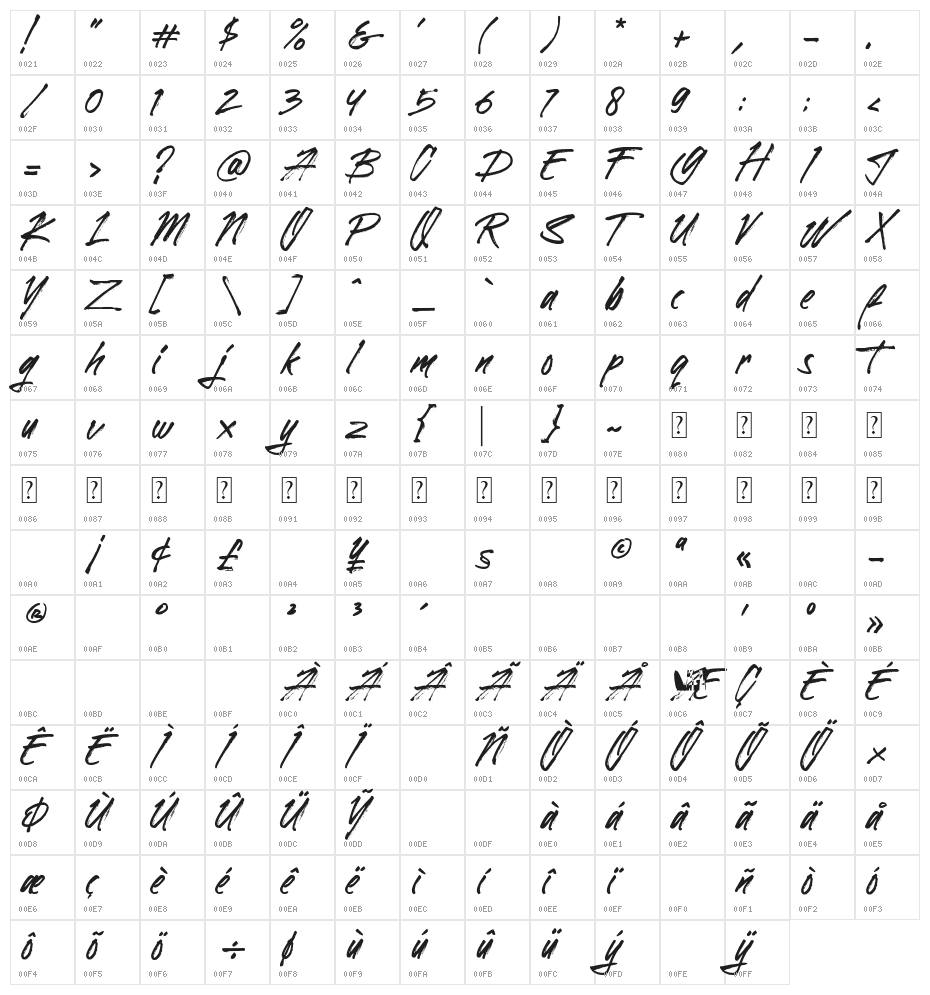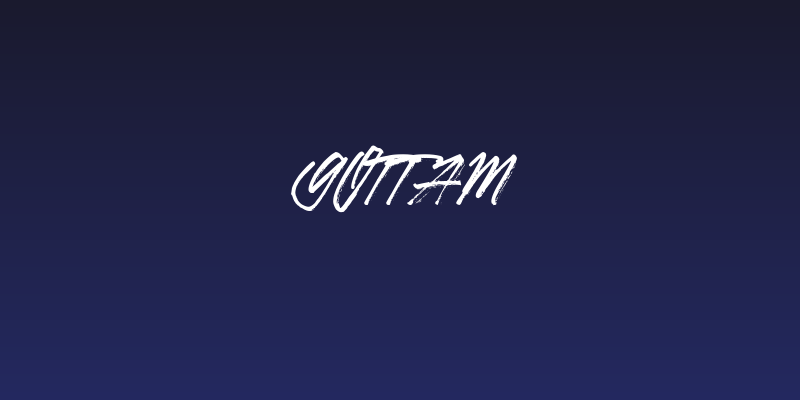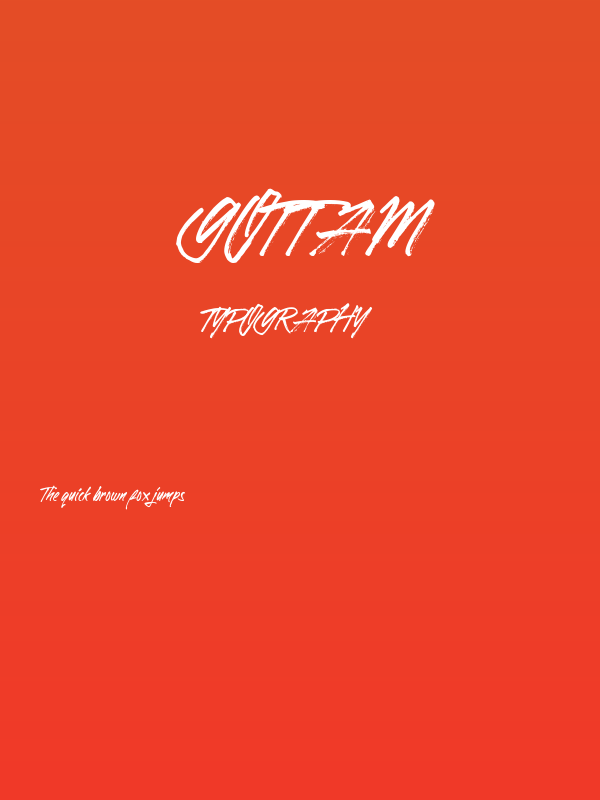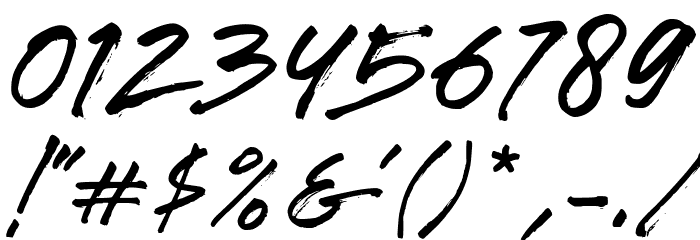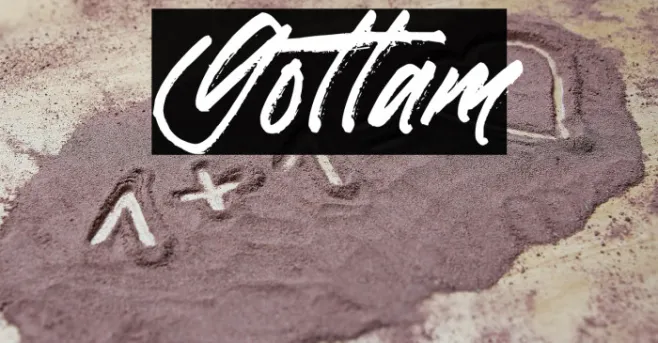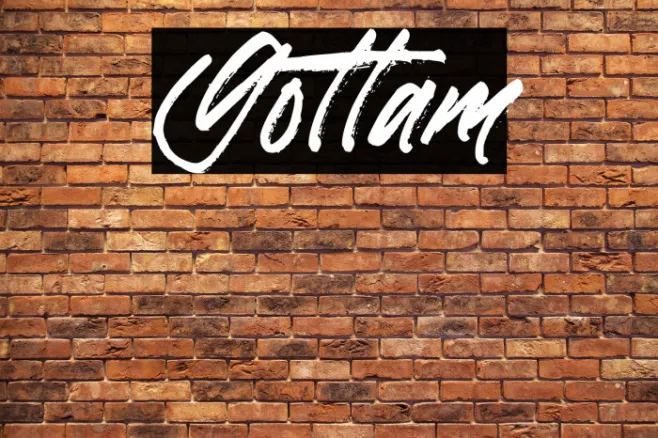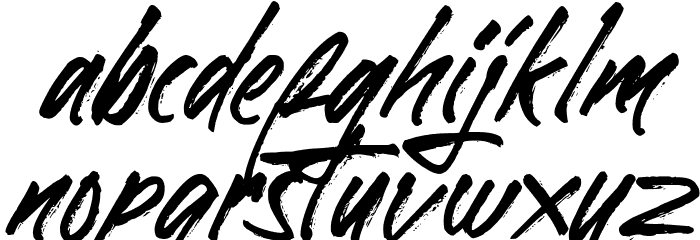
Gottam Font
Gottam Description
This font exudes a dynamic and energetic feel, characterized by its bold, brush-like strokes that give it a handwritten appearance. The uppercase and lowercase letters are crafted with a sense of motion, as if they were swiftly painted with a brush. The numbers and special characters maintain this fluidity, adding to the overall cohesive style. The font's rough edges and varying stroke thicknesses contribute to its raw and expressive nature, making it ideal for projects that require a personal touch or a sense of urgency.